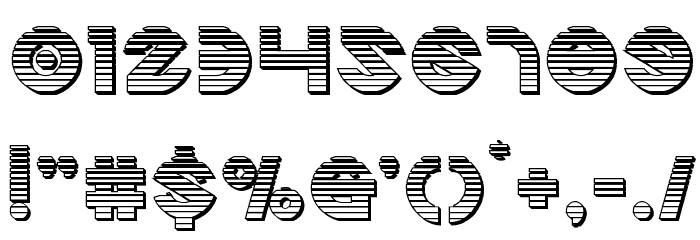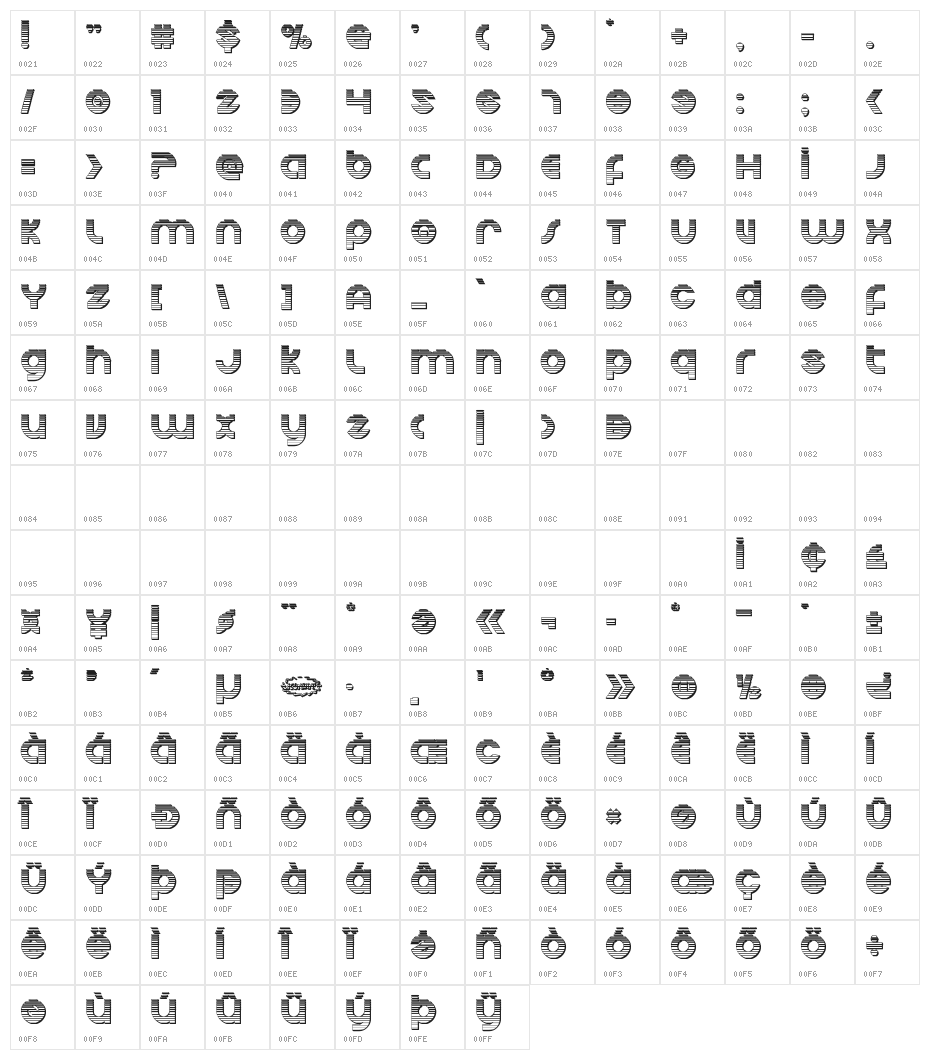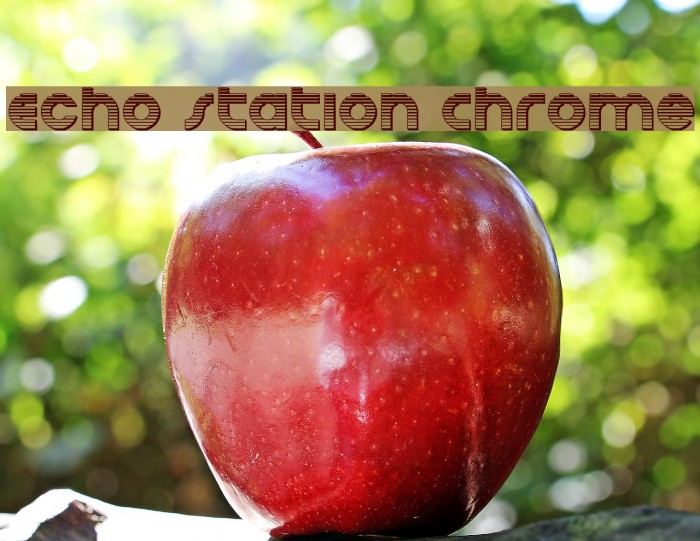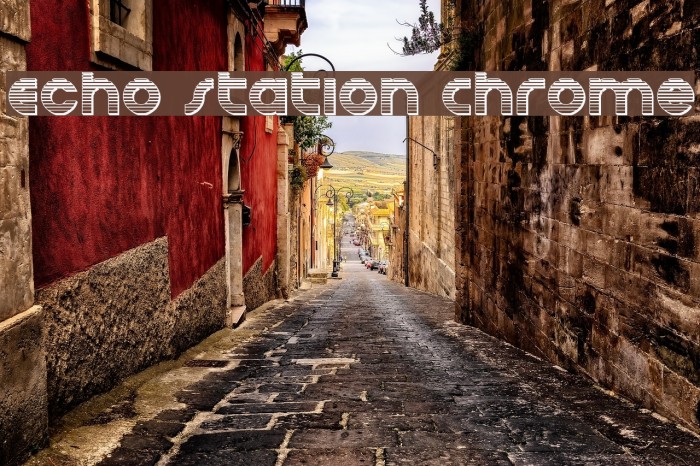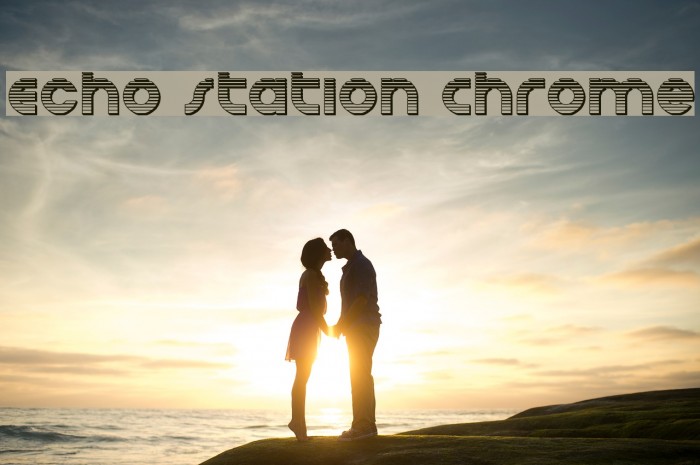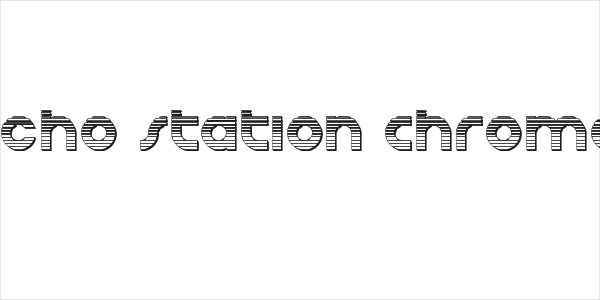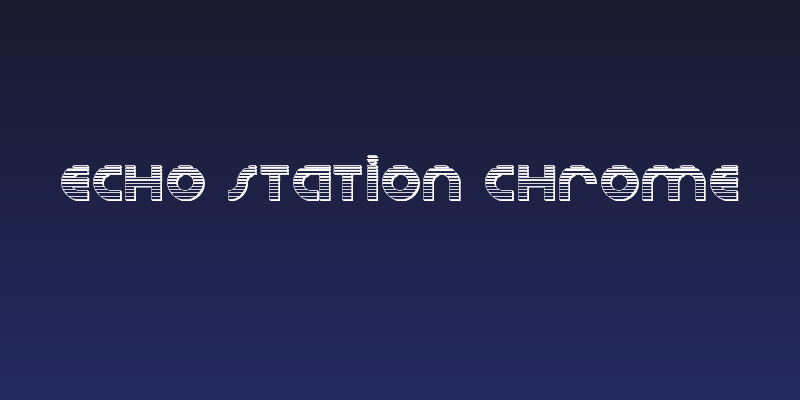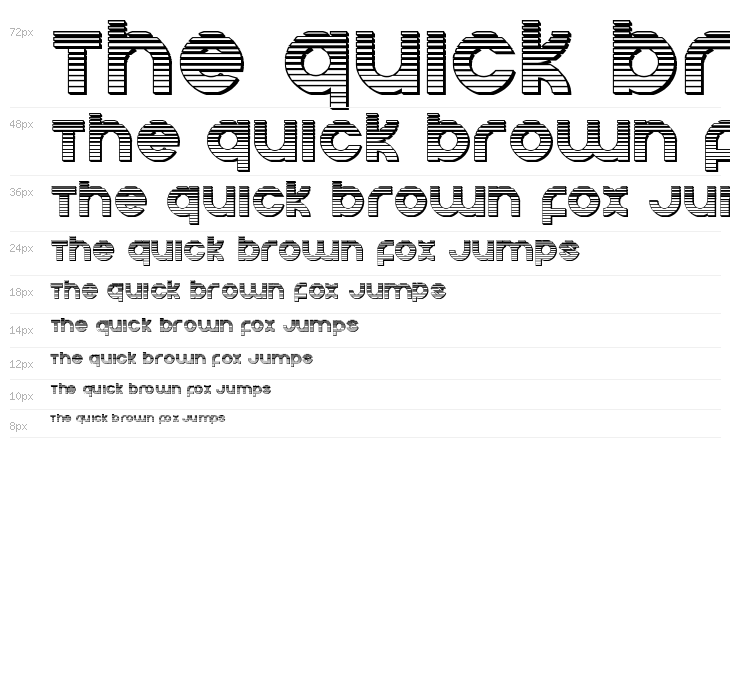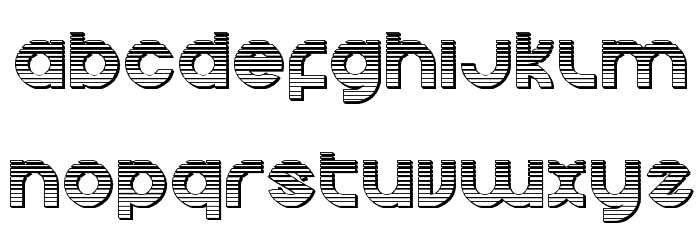
Echo Station Chrome Font
Echo Station Chrome Description
This font features a unique, futuristic design with a striped pattern running horizontally through each character. The letters are bold and rounded, giving them a distinct, modern appearance. The consistent use of lines creates a sense of movement and energy, making it ideal for eye-catching designs. The characters are evenly spaced, ensuring readability despite the intricate design. This font is perfect for projects that require a contemporary and innovative look, such as tech-related branding or digital media.
| Proposed Projects | Ideal for tech branding, digital media, and futuristic design projects. |